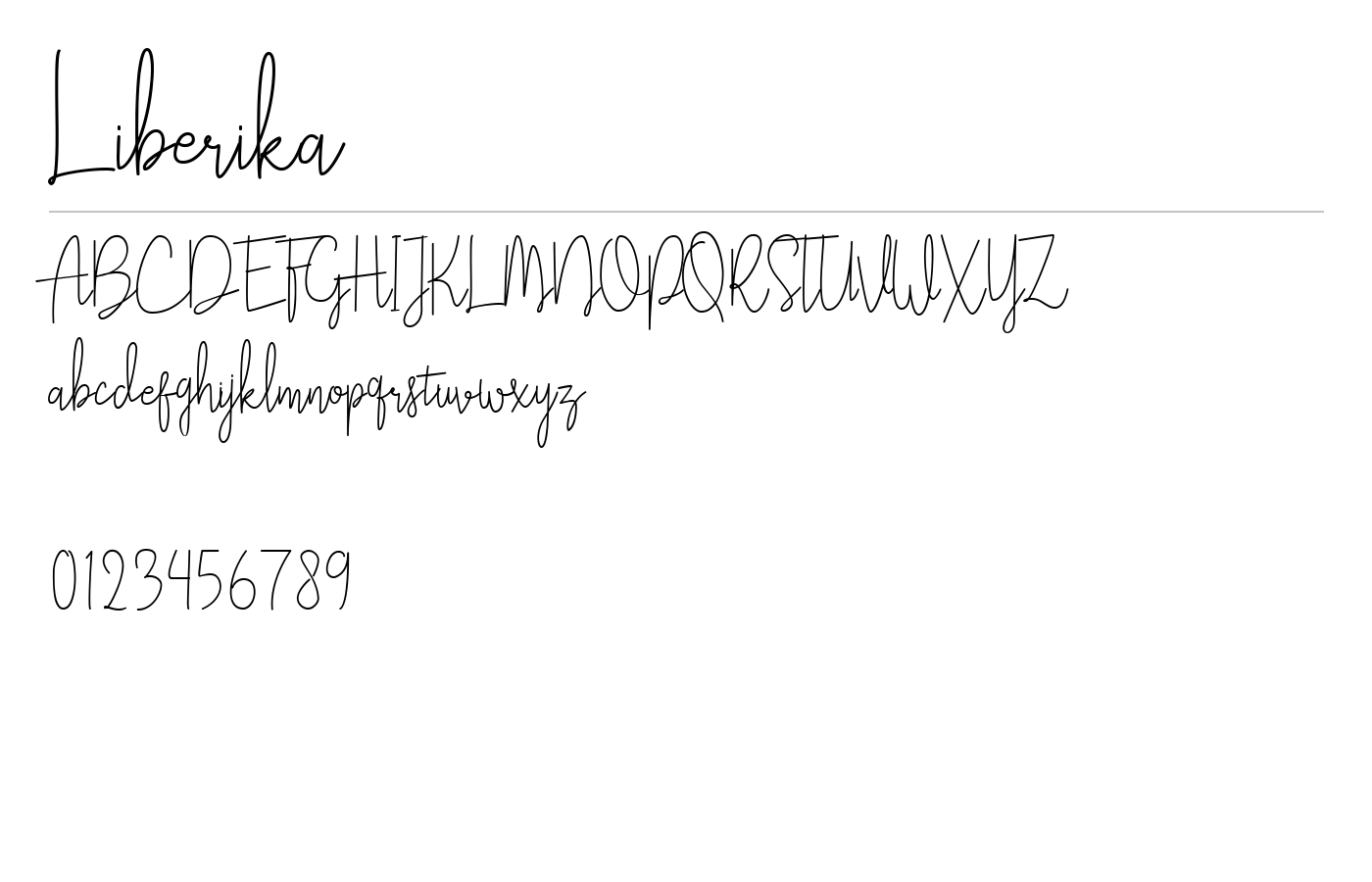
Liberika is a delicate, handwritten script font with a tall, narrow structure and a casual, airy feel. Its thin, light strokes and irregular letterforms give it a playful yet elegant personality, making it perfect for creative projects like invitations, branding, and decorative text where a personal touch is desired. This font shines in designs that need a warm, approachable style without sacrificing sophistication.
Liberika Font
About Liberika Font